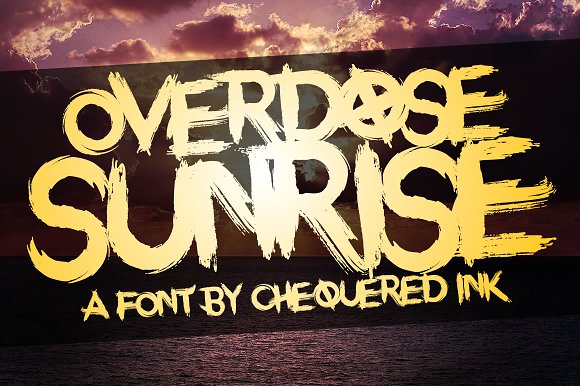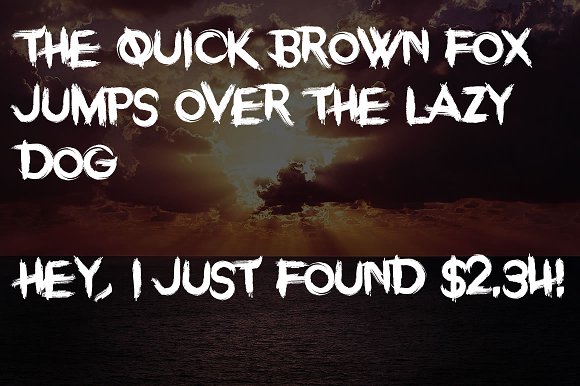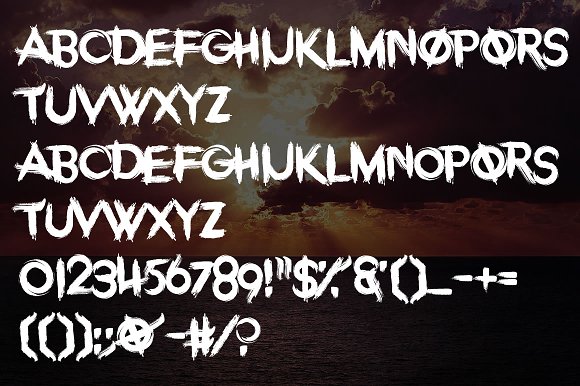
Overdose Sunrise Font
A font with broad, messy brushstrokes lending itself perfectly to a hardcore gaming project or a modern, exciting brand centered around art.